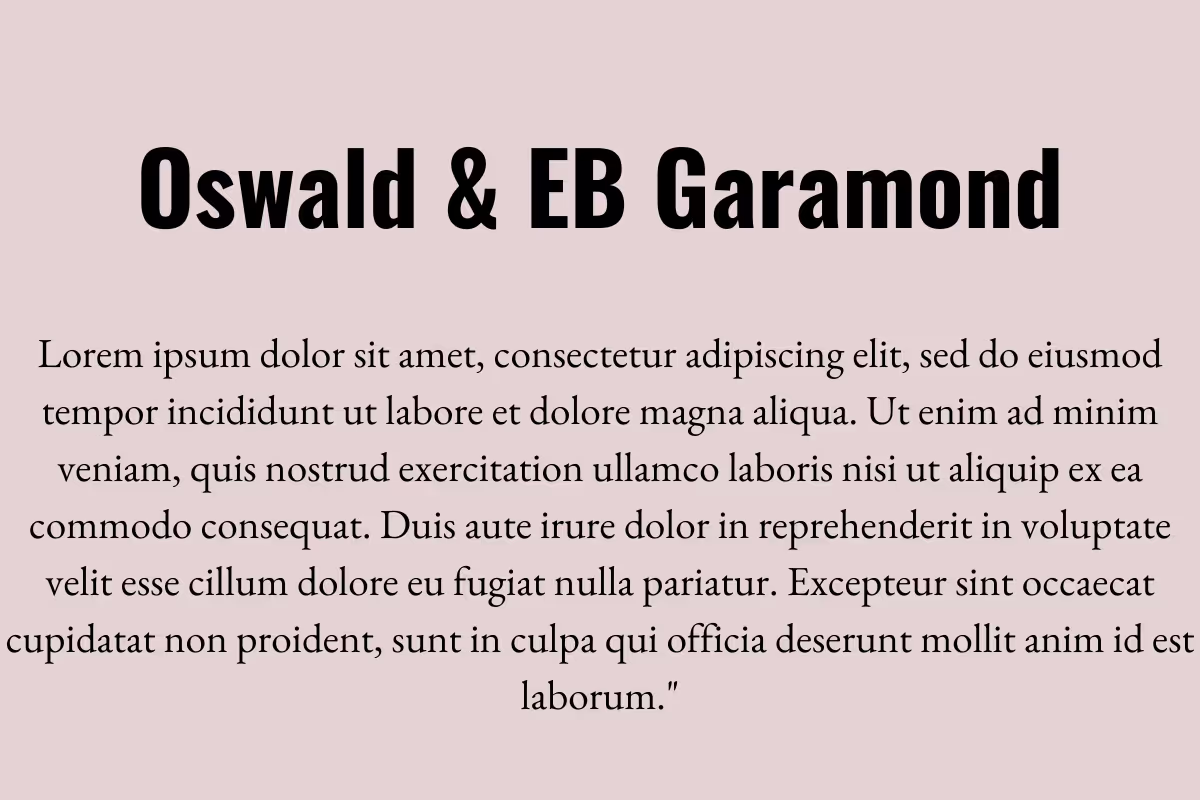
20 Best Font Pairings You Should Check Out
Explore our selection of brilliant Google font pairings, fit for every occasion.
How to pair fonts effectively? There’s more than one way to do it.
You can opt for bold contrasts, such as a heavy slab serif font and a delicate cursive script; or pair similar fonts to give your design projects a more dynamic look, whilst building a cohesive brand image. Or even, pair two different weights or styles from the same font family for a more minimalist and elegant effect.
Today, we’re looking at some of the best font pairings. We’re also going to suggest what each pair would be best suited for.
Contrasting font pairs
Let’s start with some eye-catching combinations of completely different fonts that are sure to give your designs a very exciting look.
1. League Spartan & Libre Baskerville
This is a wonderful heading and body text font combination, for modern yet elegant designs. The bulky sans serif League Spartan helps catch the viewers’ attention, while the classic free font Libre Baskerville adds a touch of sophistication. Great use of this font combo could be on a modern architecture website.
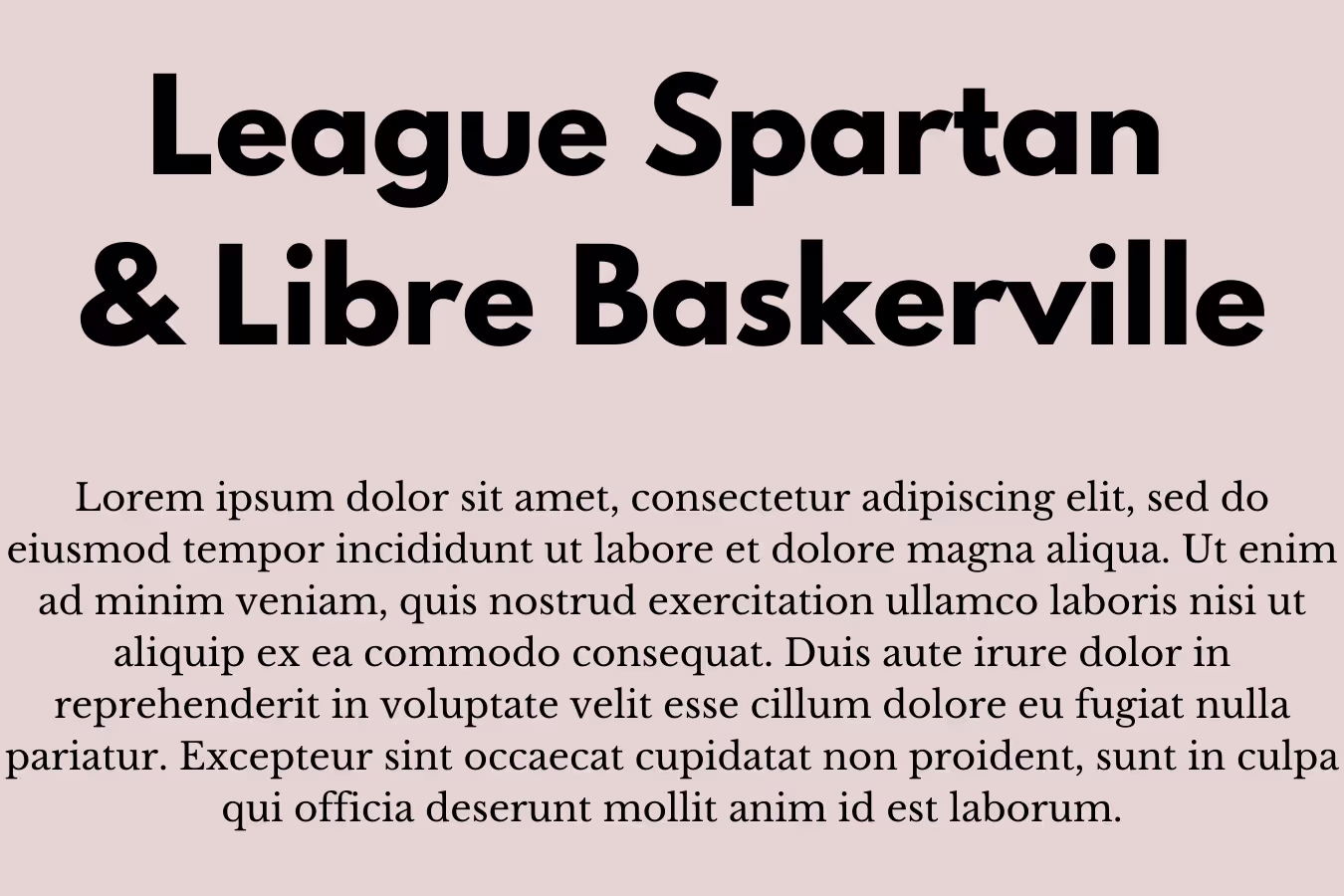
2. Lobster & Cabin
Lobster is one of the most popular script fonts, thanks to its quirky and playful look and high legibility. It would make a very good logo font and paired with the nice rounded letterforms of a sans serif font like Cabin, it would make a stunning combination for an aesthetic portfolio website or YouTube channel art.
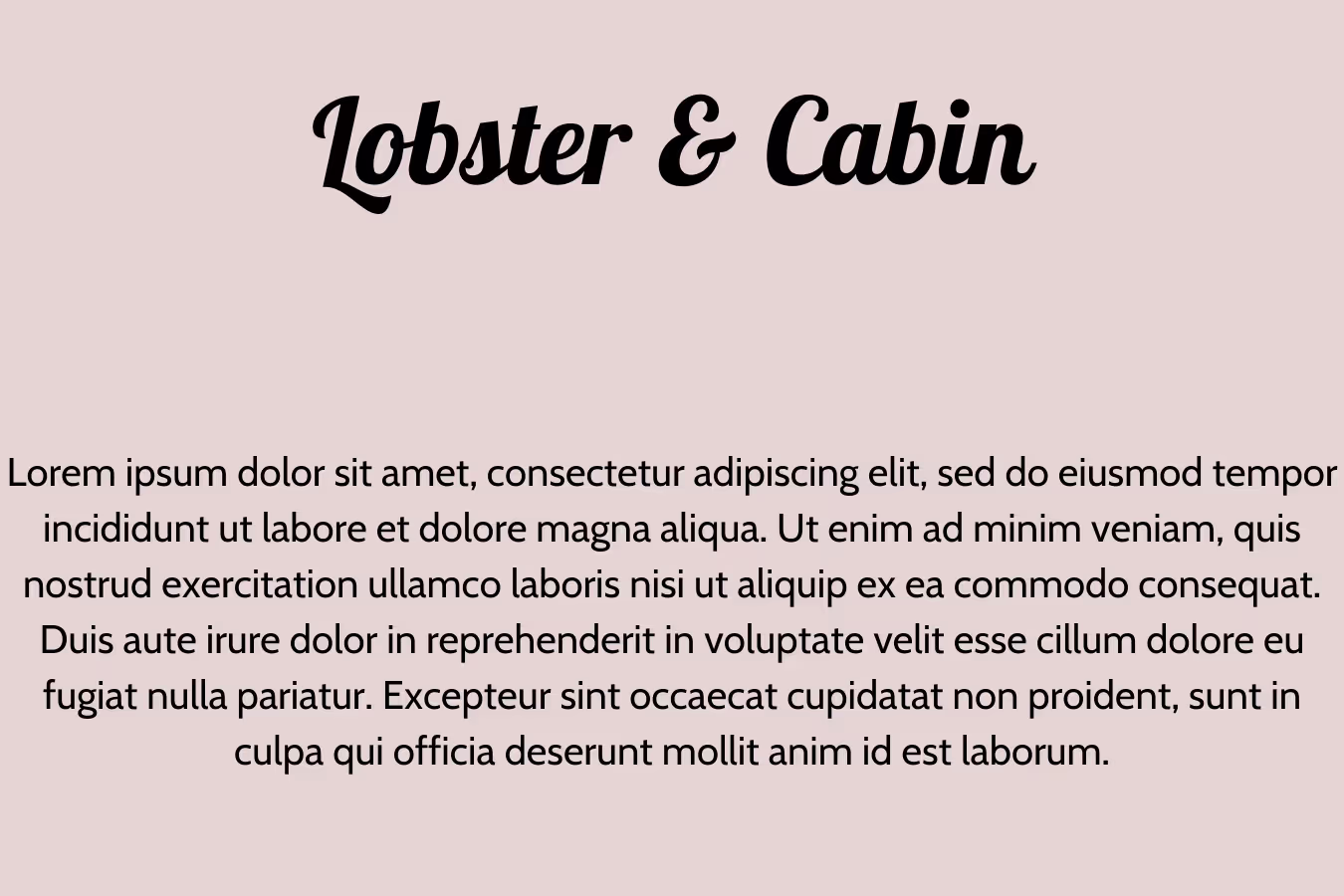
3. Open Sans Extra Bold & Cooper Hewitt
Open Sans is a big font family and one that’s often used in web design. Pairing the bulky, round lettering (especially in uppercase) with the slender forms of Cooper Hewitt will certainly deliver a dramatic effect.
The high contrast with this typeface pairing is achieved thanks to a stark difference in spacing between the letters: Open Sans has quite generous kerning, while Cooper Hewitt lettering is quite condensed.
4. Montserrat & Cardo
Montserrat is a sans serif font created by designer Julieta Ulanovsky and inspired by urban typography from the first half of the twentieth century. On the other hand, Cardo is a Unicode font that was created with Biblical scholars, medievalists and linguists in mind. It’s very decorative and has a calligraphy quality to it.
Together, however, they make for a really interesting combination, and the great thing about this Google font pairing is that you can get a completely different effect by switching them round from header to body text. For example, Cardo as a heading would be perfect for fancy restaurant menu design, while Montserrat’s clean look would fit a nice spa brochure.
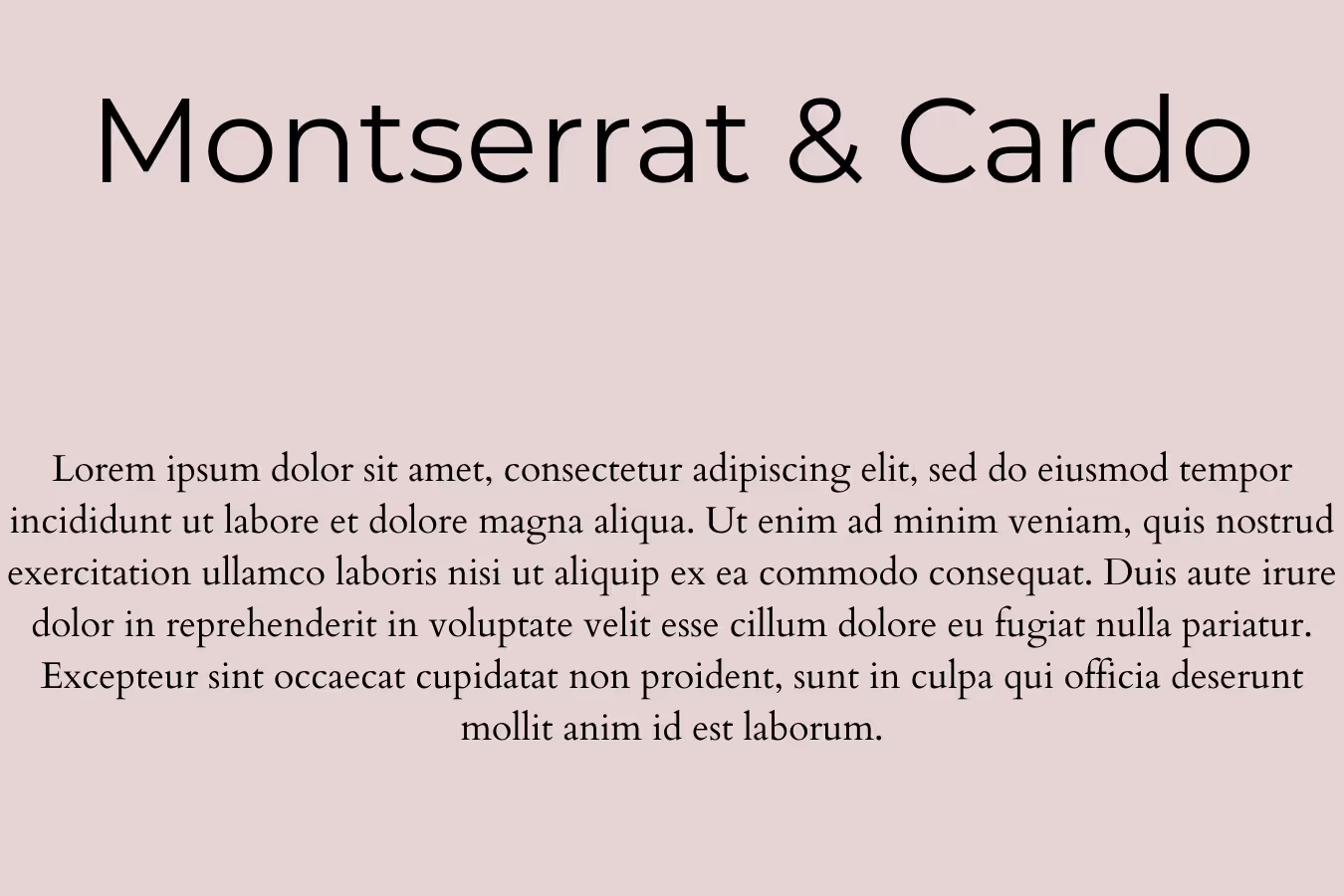
5. Homemade Apple & Raleway
Raleway is a classic sans-serif typeface that can be used for almost any professional project, so it’s no surprise that it makes a wonderfully adaptable companion to some more intricate fonts. A particularly good combo is with this cute and quirky cursive script font that looks like it could belong in a school yearbook. As a body text typeface, Raleway will let any display font shine whilst delivering all the key information.
6. Abril Fatface & Josefin Sans
Although the contrast is stark, this font pairing still makes a lot of sense. T x-height on both fonts (the height between the baseline and the mean, or middle line) is slightly lower, giving uppercase letters a long and lean look. Abril Fatface is a gorgeous font with a stark contrast in the line widths, making it a lovely display font that’s still very elegant. This captivating font combination would make a lovely choice for luxury hotel branding, as it’s both classy and professional.
7. Medula One & Lato
Medula One looks like the perfect font for signage inside a coffee shop or a small boutique. Although it’s rather decorative, it scores high for legibility. It looks like it’s inspired by old Gothic fonts, but is definitely a more modern and updated version.
Lato was designed by Polish graphic designer Łukasz Dziedzic. Lato means “summer” in Polish, and this casual, breezy font definitely lives up to its name. There’s a certain hot and cold contrast in this pair that works really well: Medula One looks like a logo font you’d see on tea and mulled wine, while Lato would look really well in a drop shadow effect on a fizzy drink label.
8. Futura Bold & Bodoni
This font pair is probably the textbook definition of contrast done well: using a crisp, yet chunky font for the header and a slim and elegant typeface for the main copy. The stark difference between the two typefaces really delivers a punch, so a combination like this would be great on all sorts of flyers and brochures, helping people immediately notice that text, but thanks to high legibility also take in information quickly.
9. Oswald and Eb Garamond